Japanese Yakumono (Punctuation Marks and Symbols) 05: “Symbols”
Collected symbols, such as circles, triangles, square figures, weather marks, etc., vary depending on the font set.
It is a point to show the figures in visually the same size, not to arrange them in size numerically. Showing in the same size can be said to not only of the figures, but the other glyphs too. At the time of learning the basics of typography, I clearly remember practicing visual adjustment with these figures (introduced in this article).
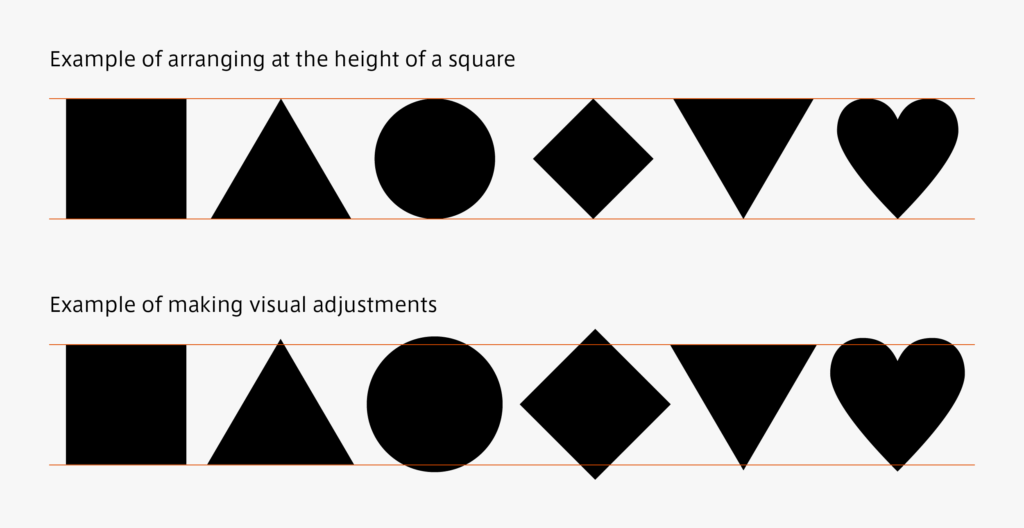
The weather mark can be an interesting glyph in terms of difference by font. Depending on the font, the weather mark may have a cute face in the sun and cloud. However, the weather marks used in Type Project are relatively simple. For now, only the snow mark has a face. In the AXIS Font, the snow mark has a snowman with snowfall. In Hama Mincho, it has a snowman with a hat. In TP Sky, it only has a snowman without snowfall or hat – this is the simplest.